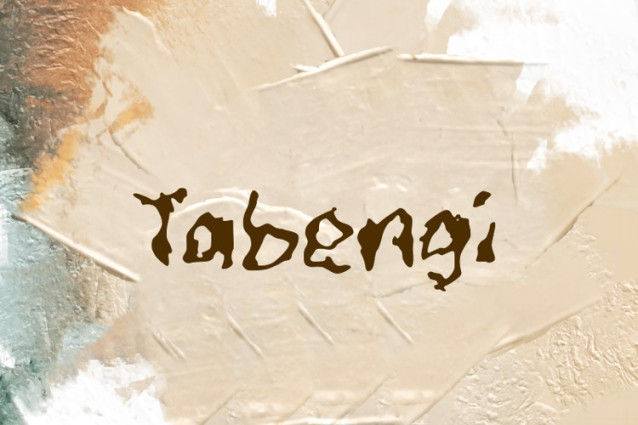
Tabengi Font
Tabengi Font, It would be a perfect choice to design posters, affiches, logos, t-shirt and magazine prints, eye-pleasing typographic designs and more.